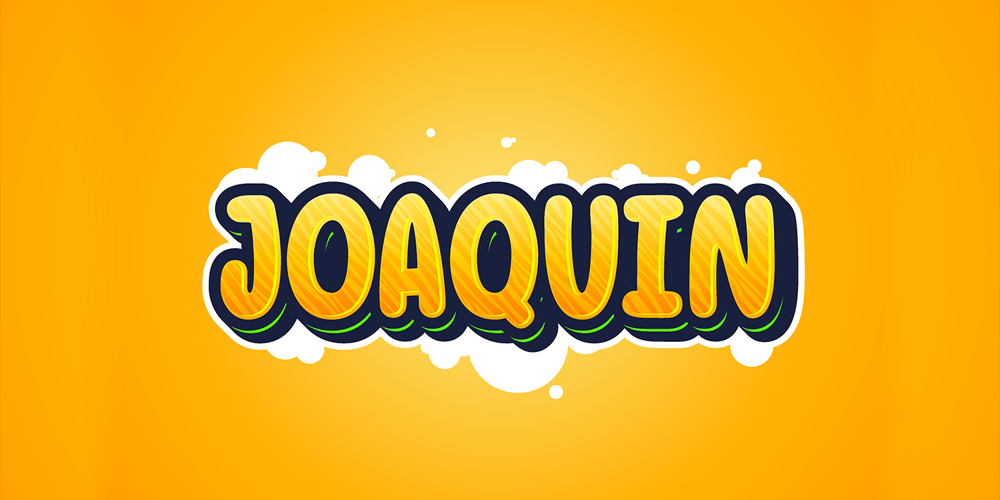
Joaquin Typeface
Joaquin Typeface font
Joaquin Typeface Font Family was designed by Evin Tony and published by FoxType. Joaquin Typeface contains 4 styles and family package options. Joaquin Display is a Brand New Elegant Bubbly Typeface with a powerful font family. It has a dependable and uncompromising style, with controlled letterforms and modern touches. It looks amazing in funny logos, cartoon posters, and movies. Joaquin Font would be perfect for kid’s craft, comic posters, Captions, bubbly texts, and cute funny boards. The various weights allow you to experiment with a wide range of applications. It’s created to make an impression without sacrificing its beauty and readability. It’s shown a clean, bubbly, warmth, funny, yet still purposed to be versatileThe Typeface includes four Weights – Regular, Medium, SemiBold, and Bold All offer wide language support Uppercases and Lowercases. Numerals and extended punctuation. Thank you for taking the time to look into the font